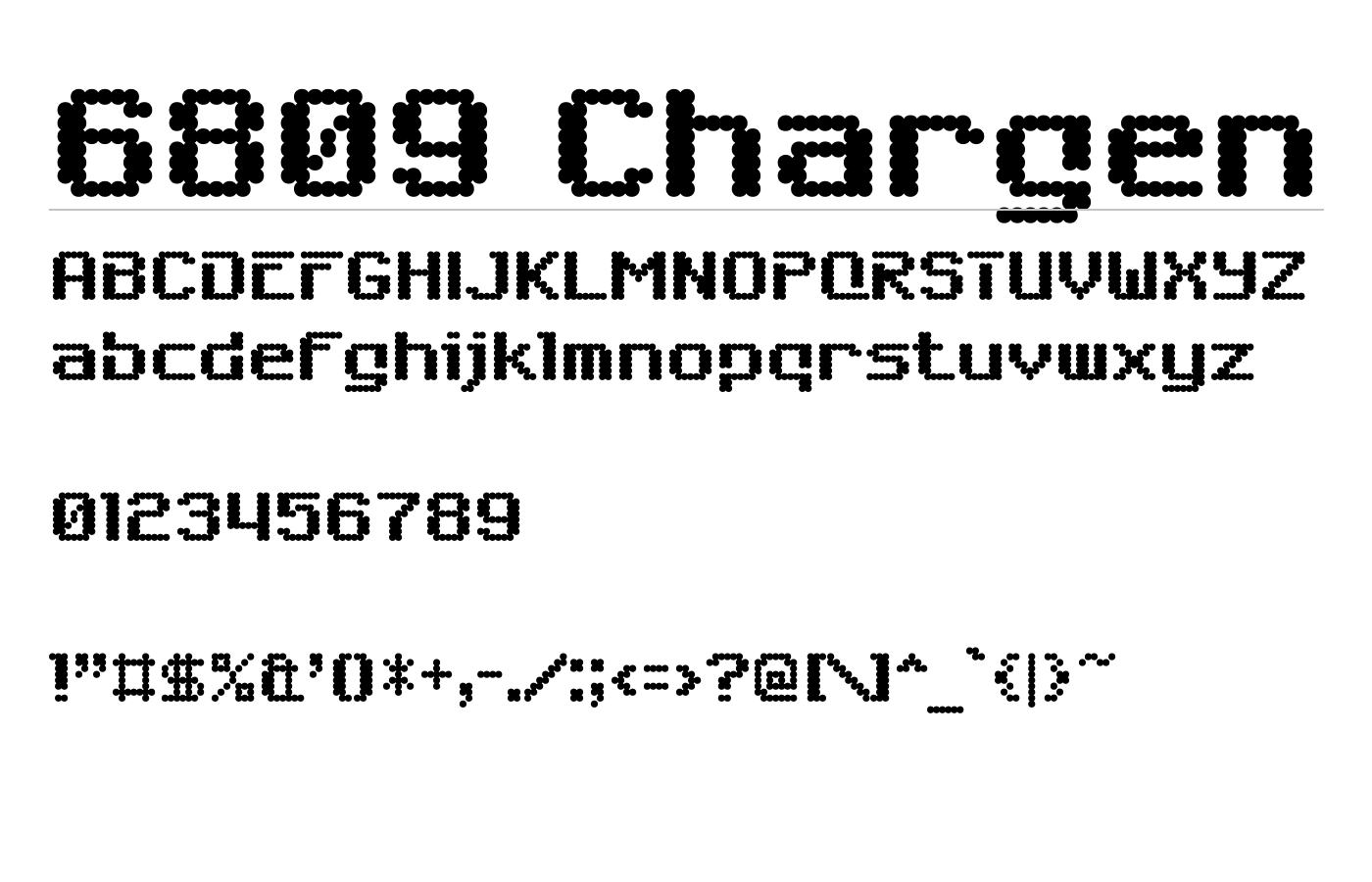
6809 Chargen is a playful, pixelated sans serif font that mimics a retro digital display made of small, rounded dots. Its monospaced, square-shaped letters with uniform weight and minimal contrast give it a technical, vintage computer vibe ideal for gaming, tech branding, or nostalgic designs. This font works best for headlines, logos, and digital-themed projects where a quirky, tech-savvy personality is desired.
6809 Chargen Font
About 6809 Chargen Font